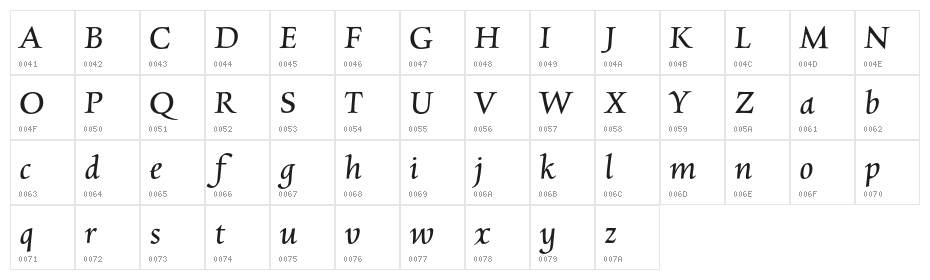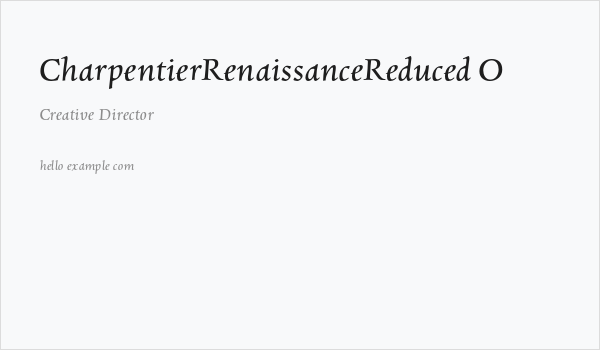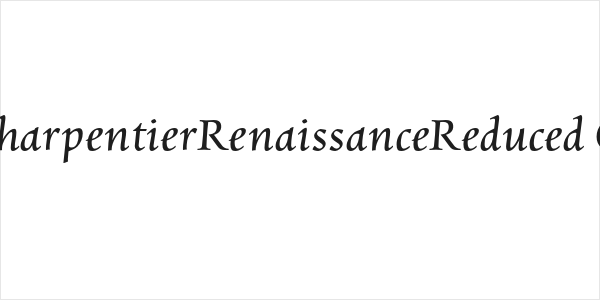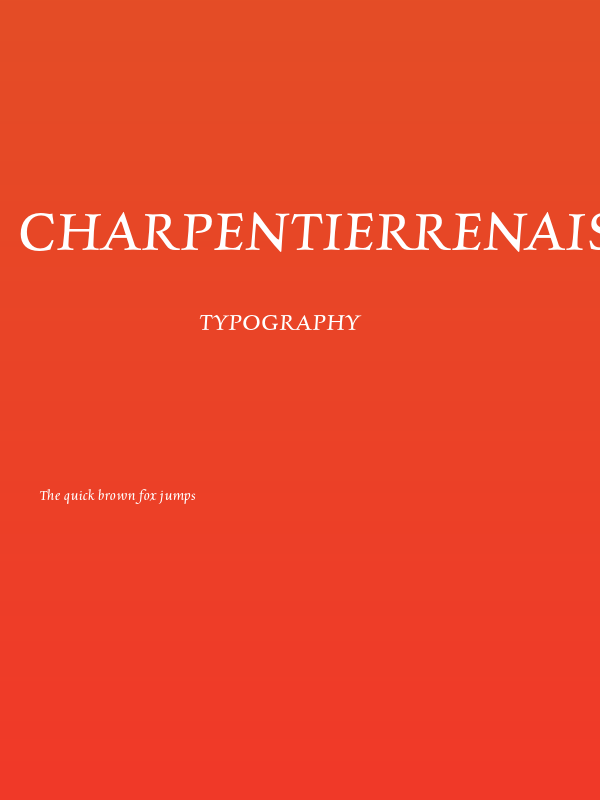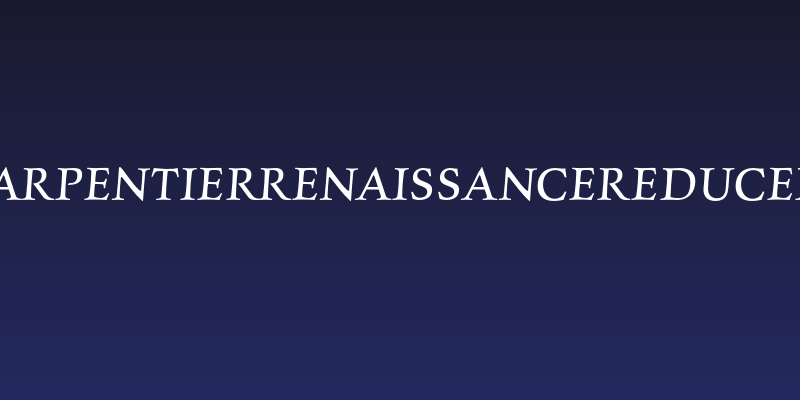
CharpentierRenaissanceReduced-O Font
CharpentierRenaissanceReduced-O Description
This font exudes a classic elegance reminiscent of Renaissance calligraphy. The characters are crafted with a distinct flair, featuring graceful curves and a slight slant that adds a dynamic touch. The uppercase letters are stately and refined, while the lowercase letters maintain a fluid and harmonious flow. The serifs are pronounced, contributing to the font's traditional appeal. The overall design is balanced, with a medium contrast between thick and thin strokes, enhancing readability while preserving its artistic charm.
| Use Case | Headlines, Invitations, Branding |
| Proposed Projects | Ideal for projects that require a touch of historical elegance, such as wedding invitations, formal event programs, or luxury branding. |